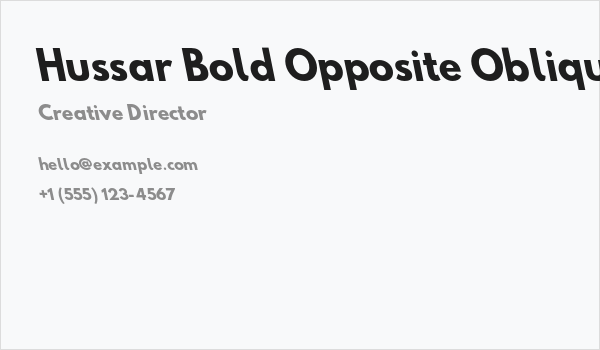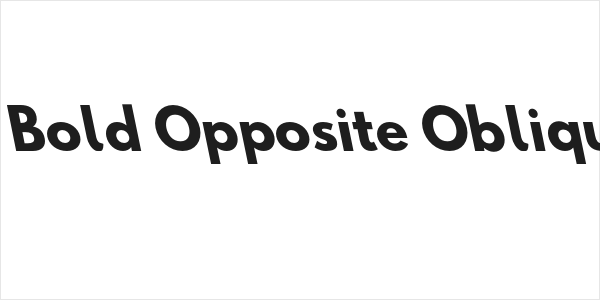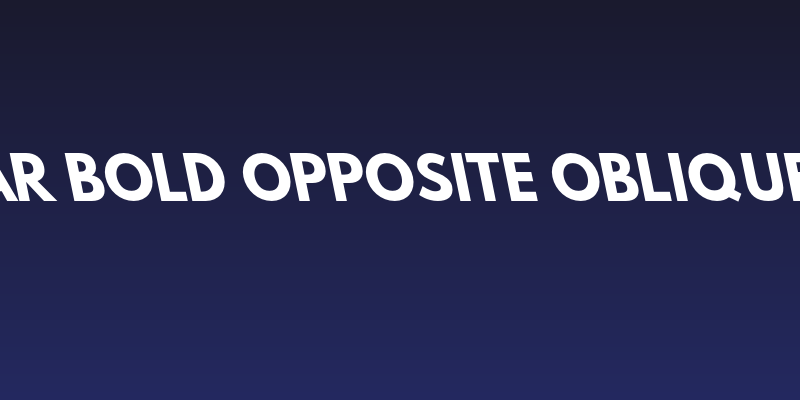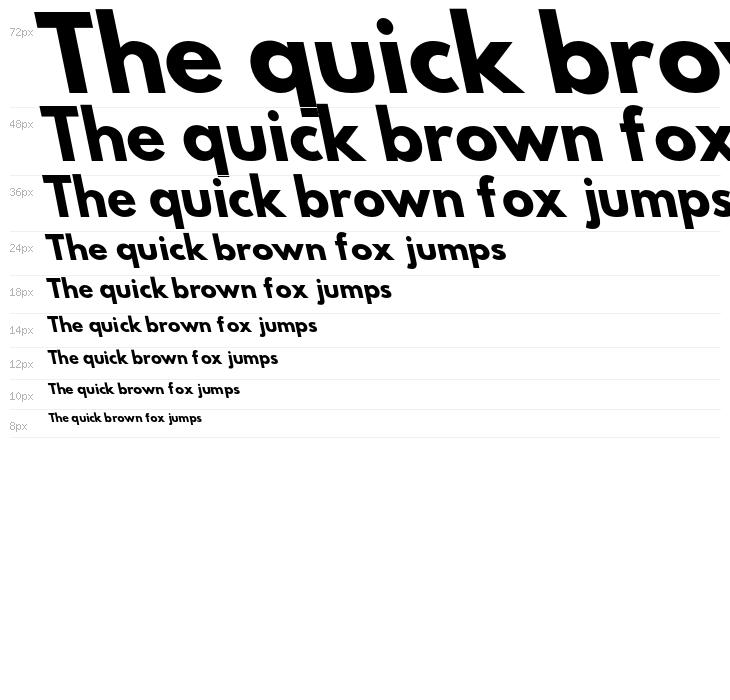
Hussar Bold Opposite Oblique Two Font
Hussar Bold Opposite Oblique Two Description
This font features bold, oblique characters with a strong presence and a modern aesthetic. The uppercase and lowercase letters are designed with a consistent weight, providing a uniform appearance across the alphabet. The numbers and special characters maintain the same boldness, ensuring readability and impact. The strokes are thick and uniform, contributing to a high contrast that enhances visibility. The overall style is clean and contemporary, making it suitable for a variety of design applications. The character spacing is normal, allowing for easy readability without appearing cramped or overly spaced.
| Proposed Projects | Ideal for headlines, posters, branding, and advertising materials where a strong visual impact is desired. |